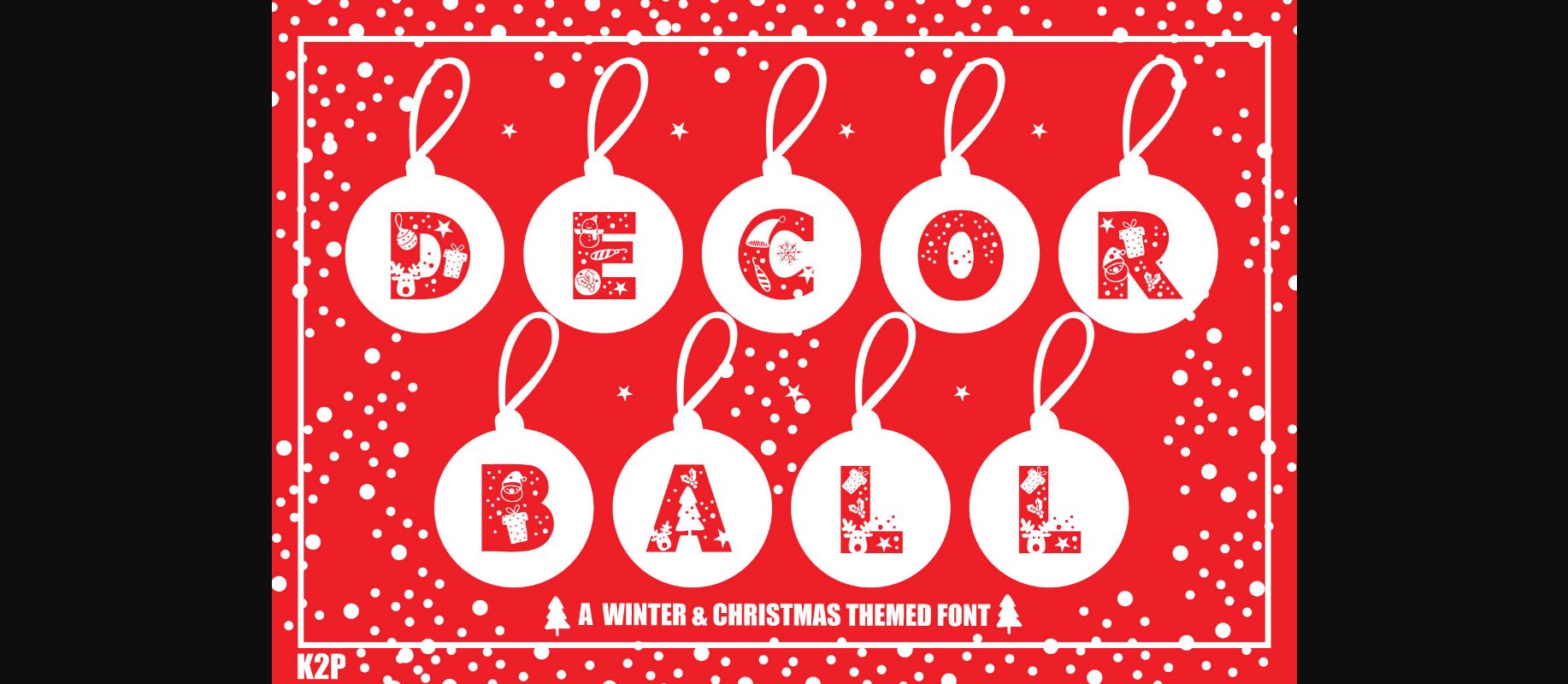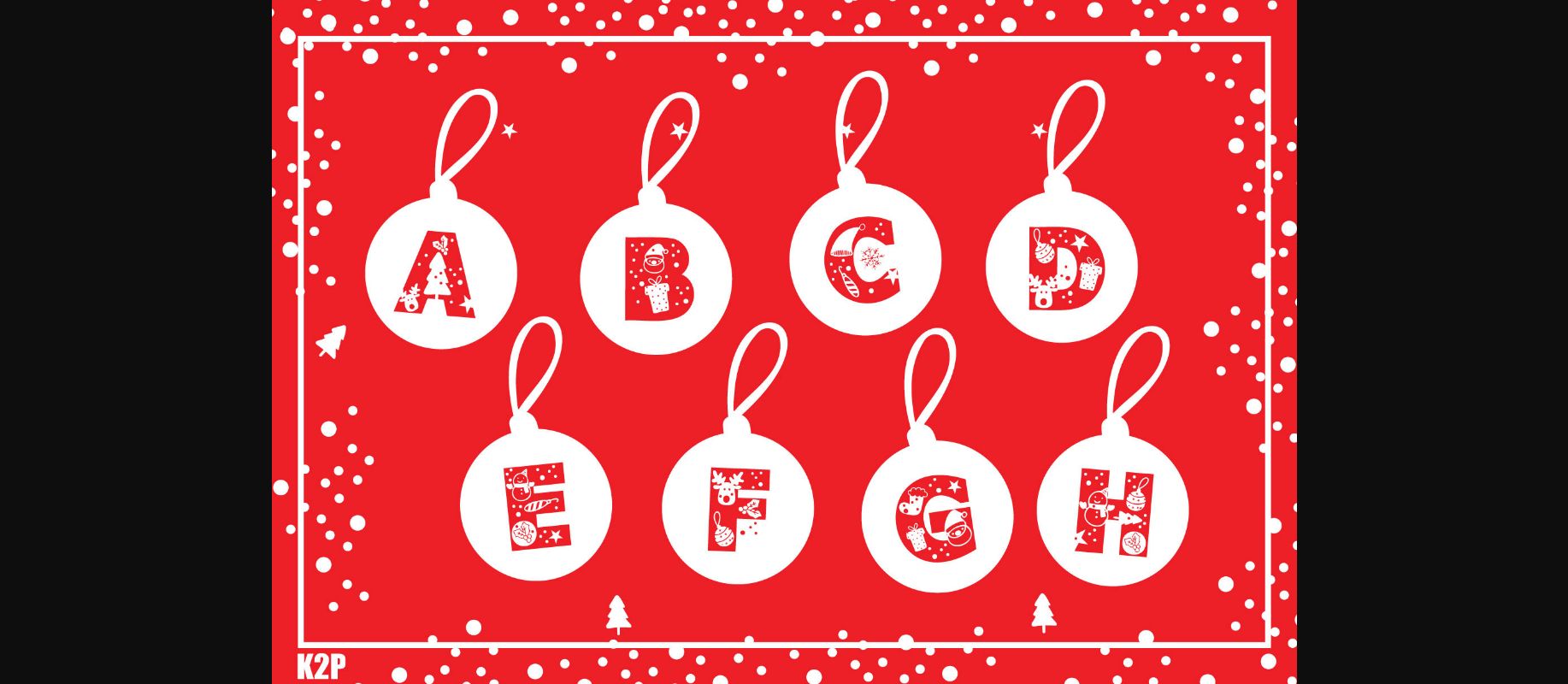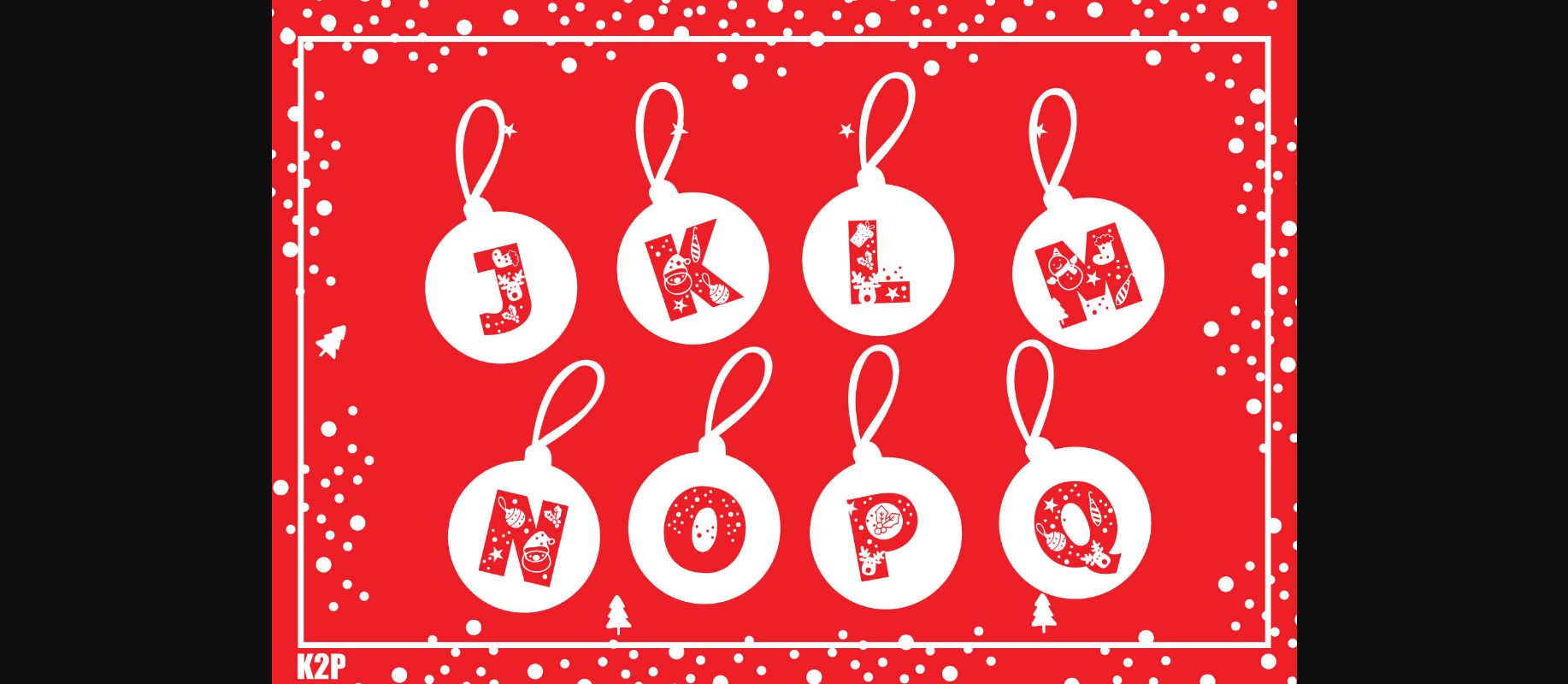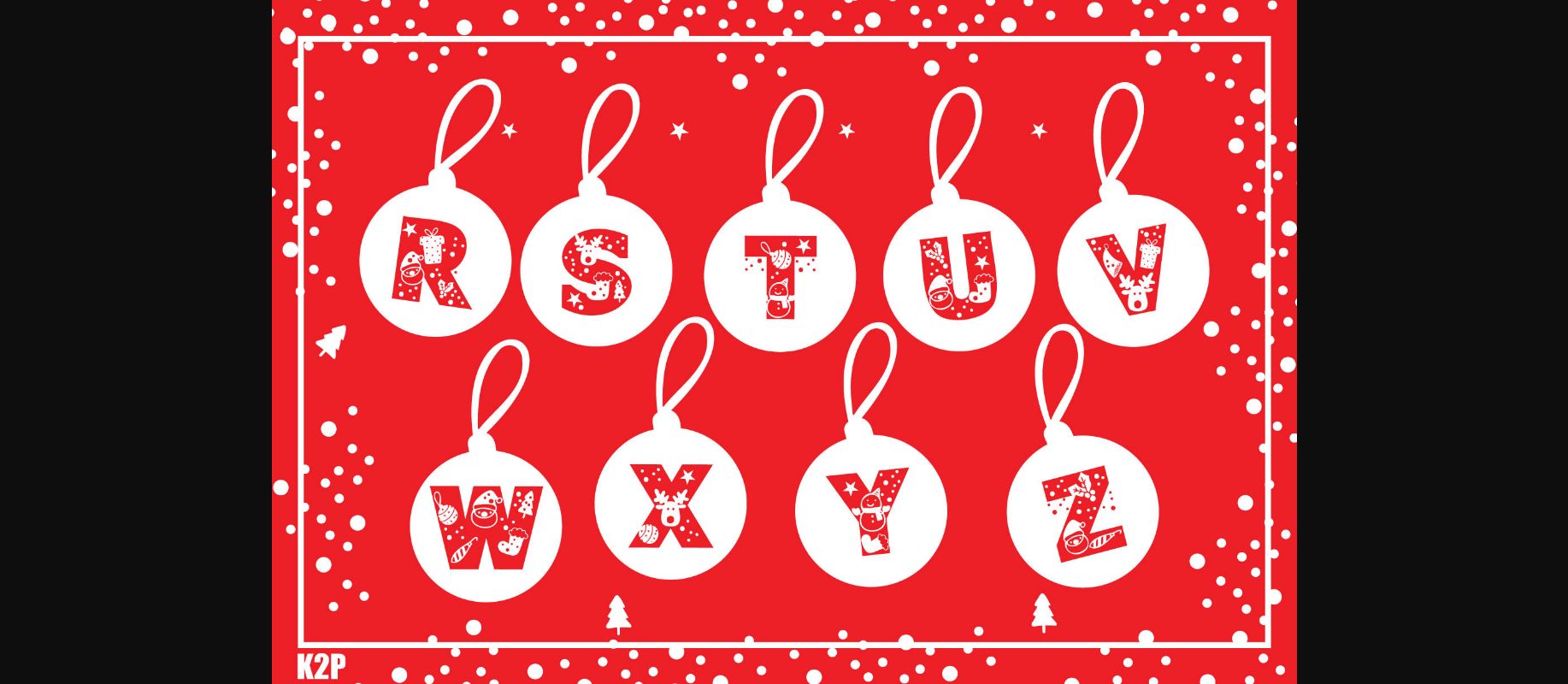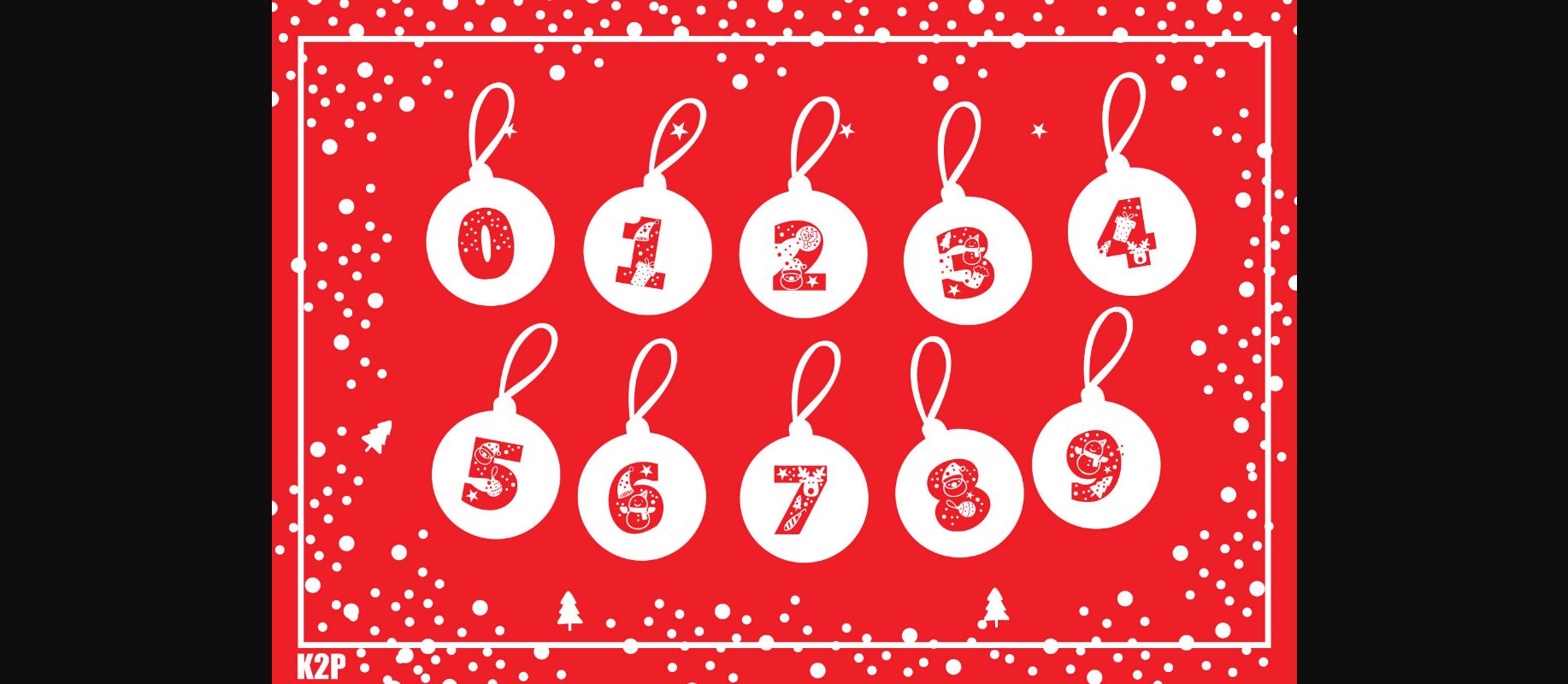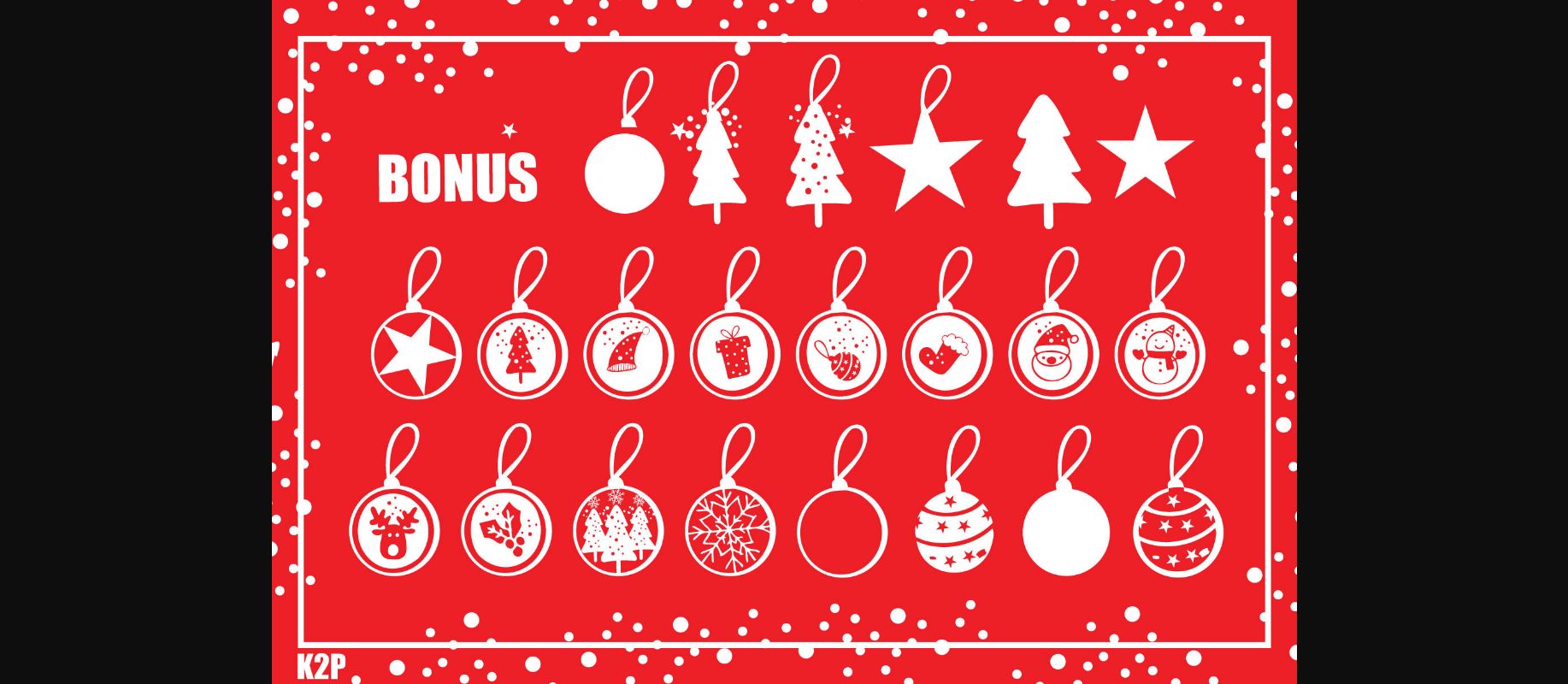
HomeDecorative FontsDecor Ball Font Decorative Fonts Decor Ball Font FacebookTwitterPinterestWhatsApp 1 of 10 ... Decor Ball Font Poster 2... Decor Ball Font Poster 3... Decor Ball Font Poster 4... Decor Ball Font Poster 5... Decor Ball Font Poster 6... Decor Ball Font Poster 7... Decor Ball Font Poster 8... Decor Ball Font Poster 9... Decor Ball Font Poster 10... About Decor Ball Font Decor Ball is a thick lettered and incredibly unique decorative font. It can be used for various design ideas, particularly those related to the Christmas holiday. DOWNLOAD NOW People also explored Serena Nicholia Font Slayer Creeper Font Norway Font Venom Font Hero Beam Font Ashera Font Samarota Monoline Font New Scraper Font 150 0 TagsDecor Ball Font Previous articleT-Rex Zone FontNext articleHello Monogram Font LEAVE A REPLY Cancel reply Comment: Please enter your comment! Name:* Please enter your name here Email:* You have entered an incorrect email address! Please enter your email address here Website: Save my name, email, and website in this browser for the next time I comment. Personal Use Free Braindly Personal Use Free Read more about this font BD Algebra Personal Use Free Read more about this font Single Sleeve Personal Use Free Read more about this font Budmo Personal Use Free Read more about this font BLOG Free Fonts Risk: Why Free Fonts Can Be Dangerous for Designers Free Fonts Risk: Why Free Fonts Can Be Dangerous for Designers Using free fonts is a common practice in web and graphic design. However, the... Exploring Font Trends Using Fonts in Digital Marketing: Tips to Strengthen Your Brand Identity Where to Buy American Fonts Online in 2024